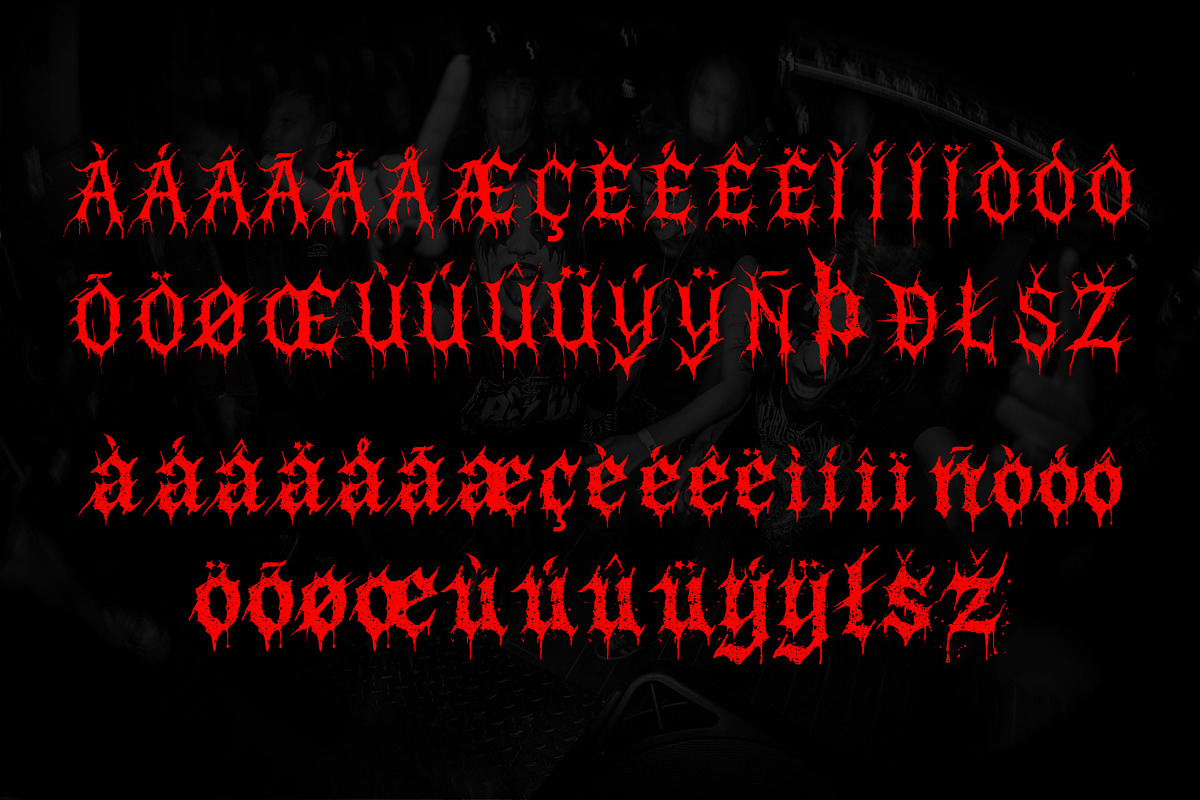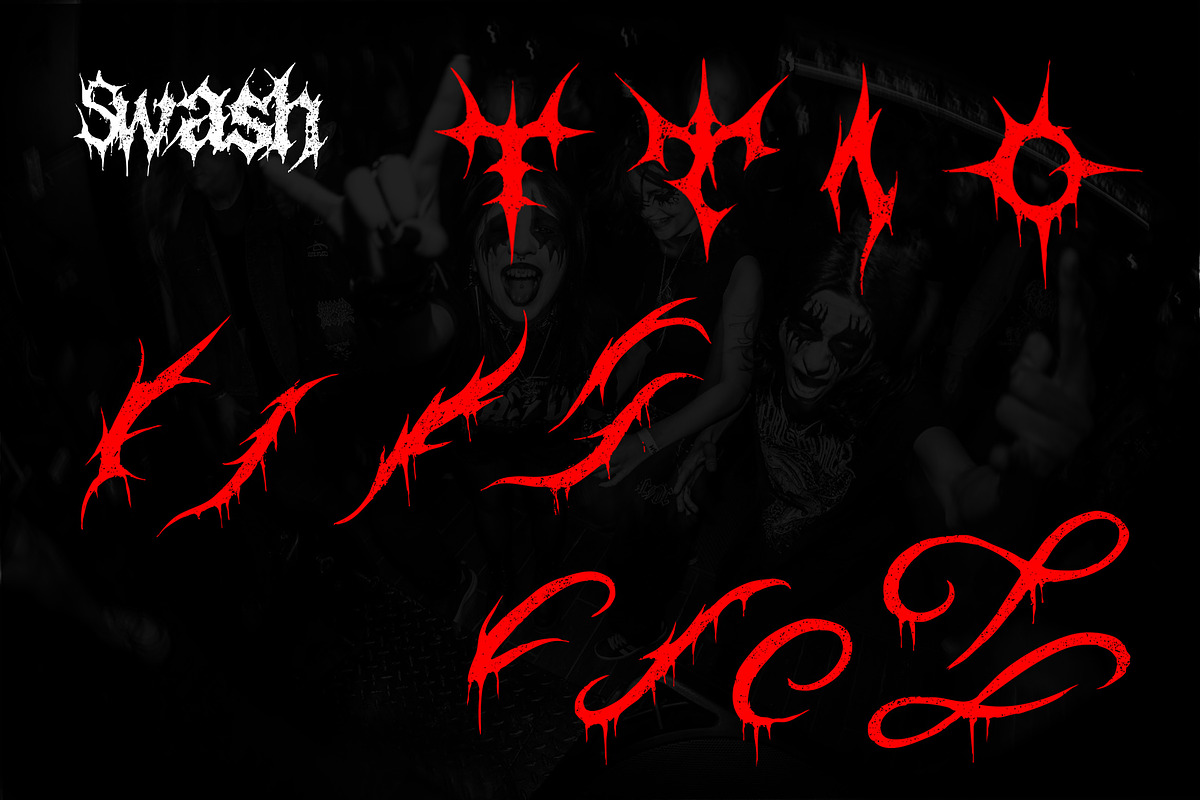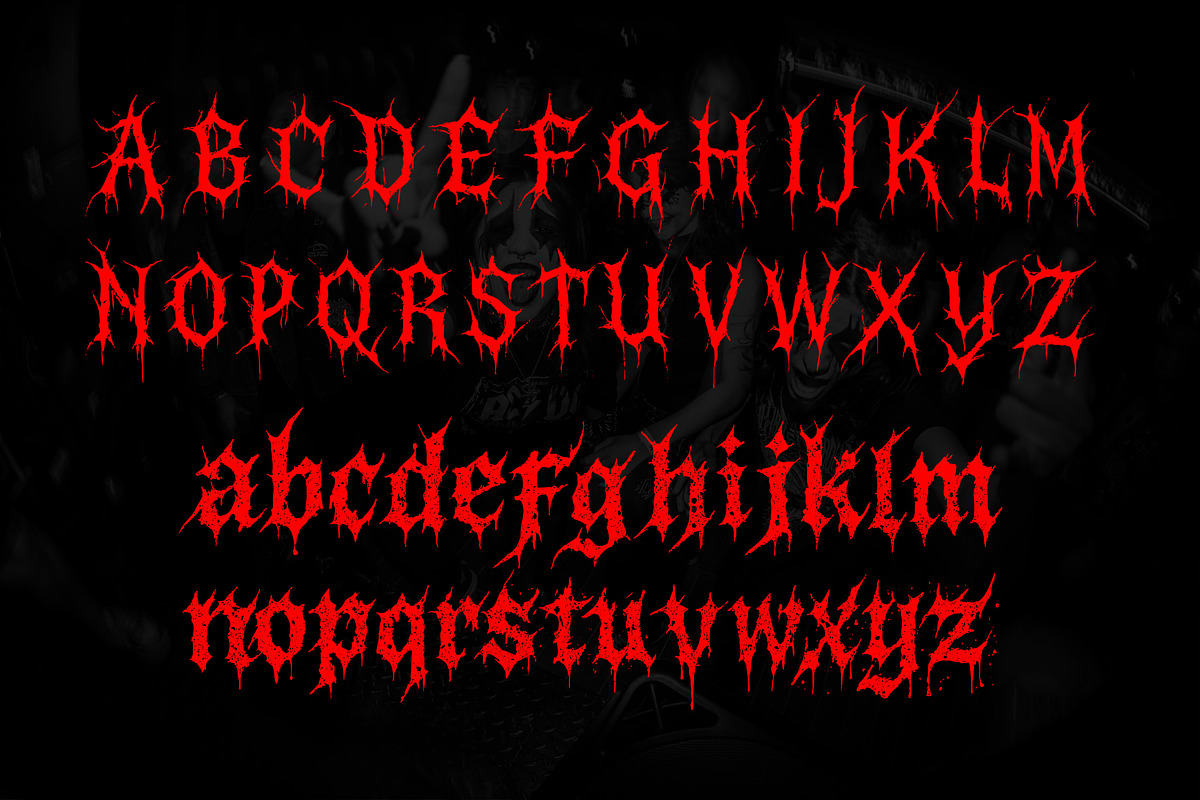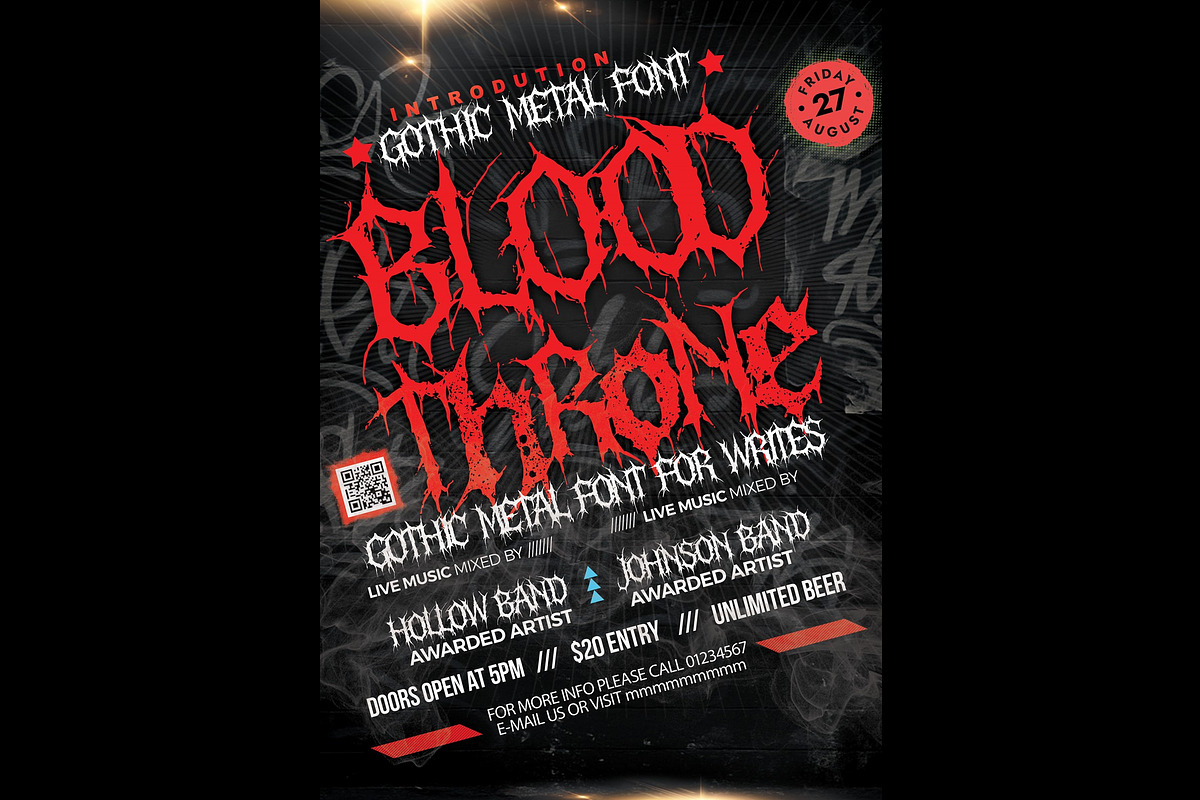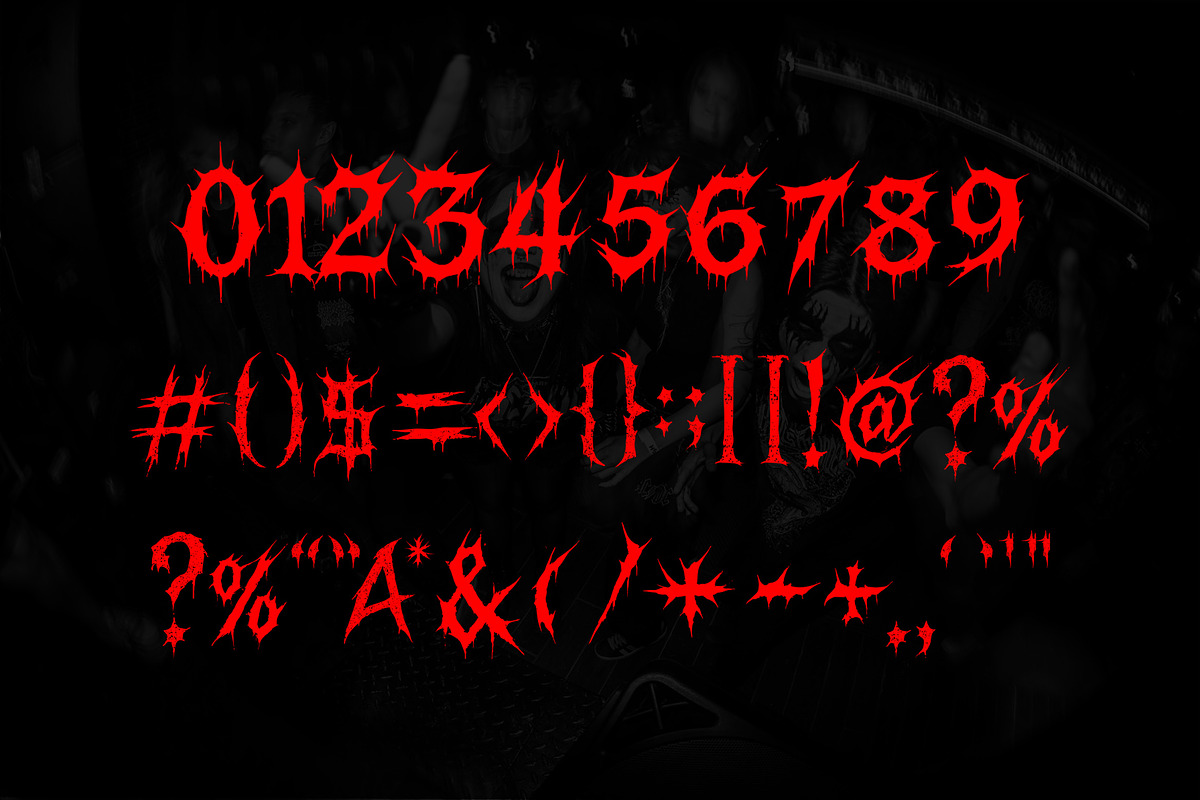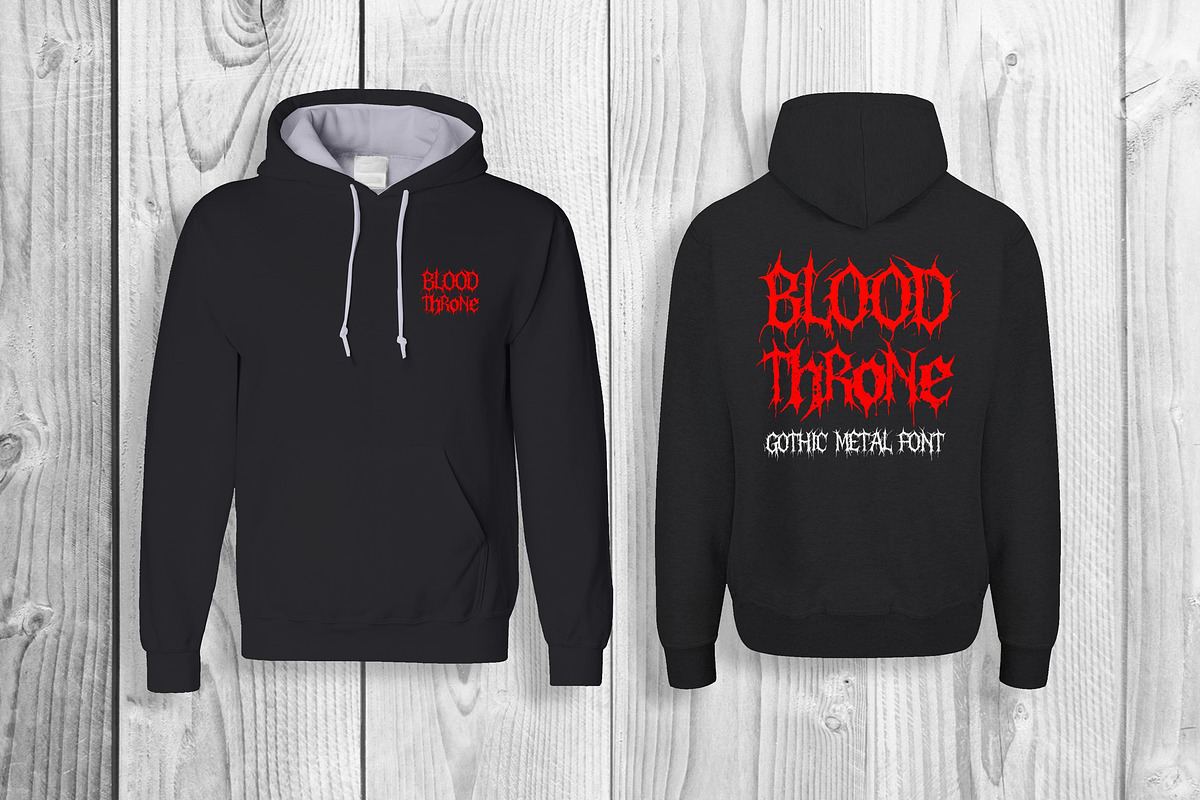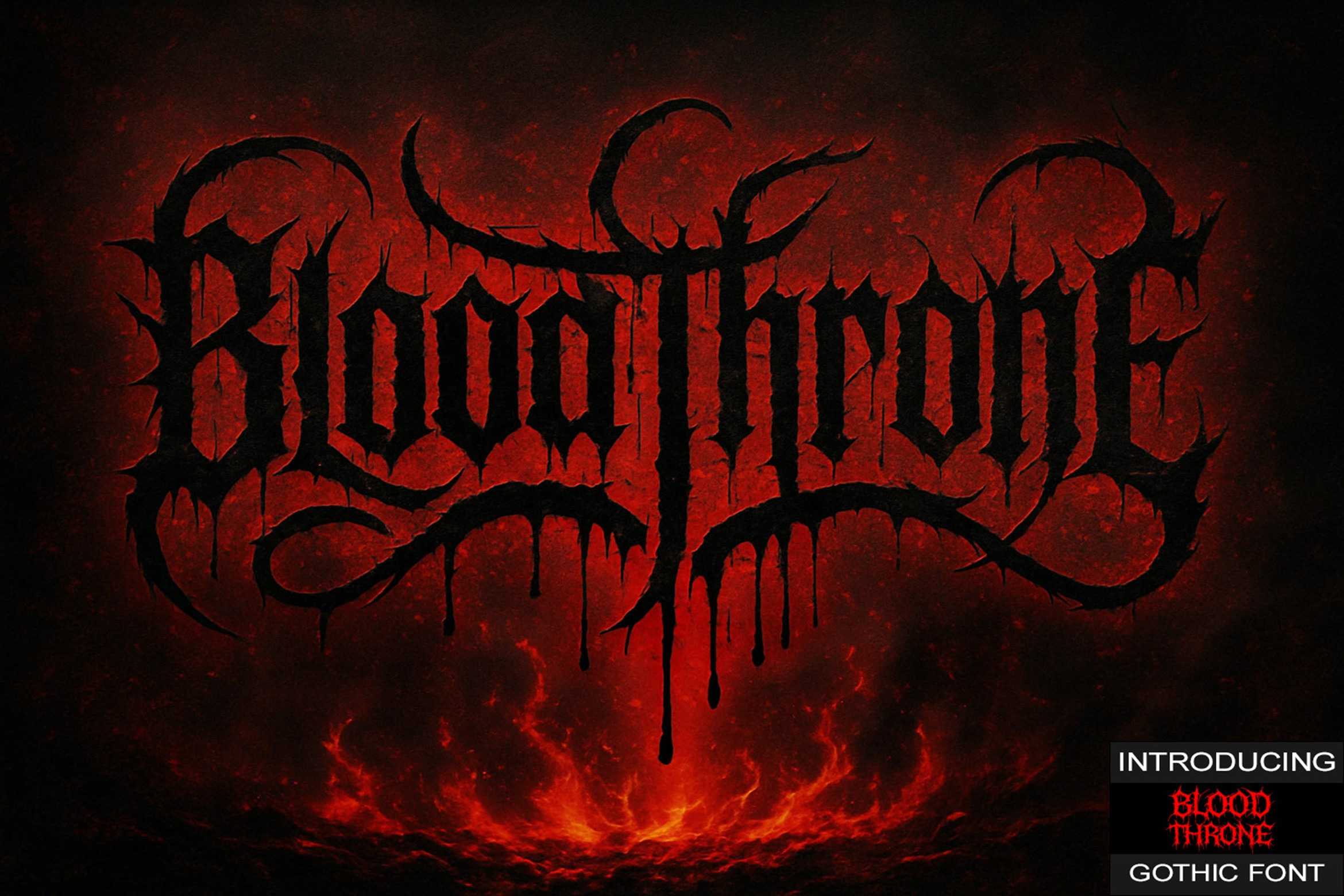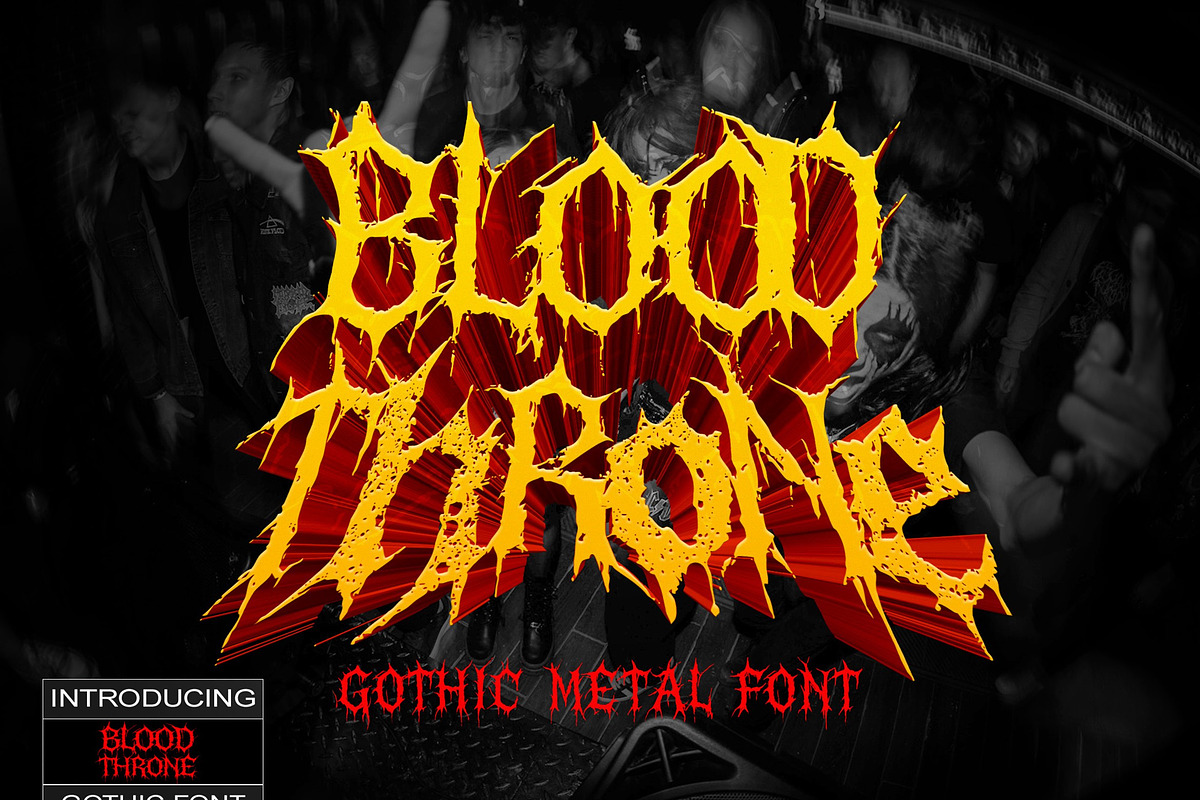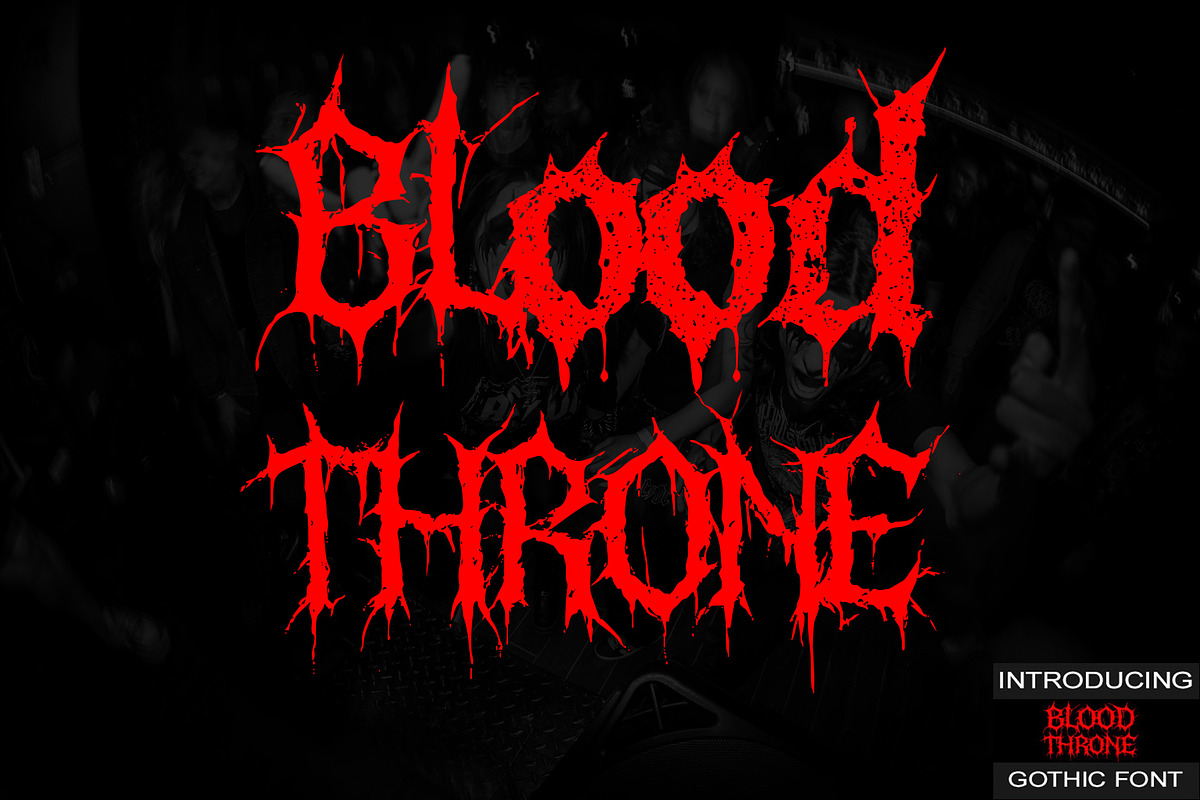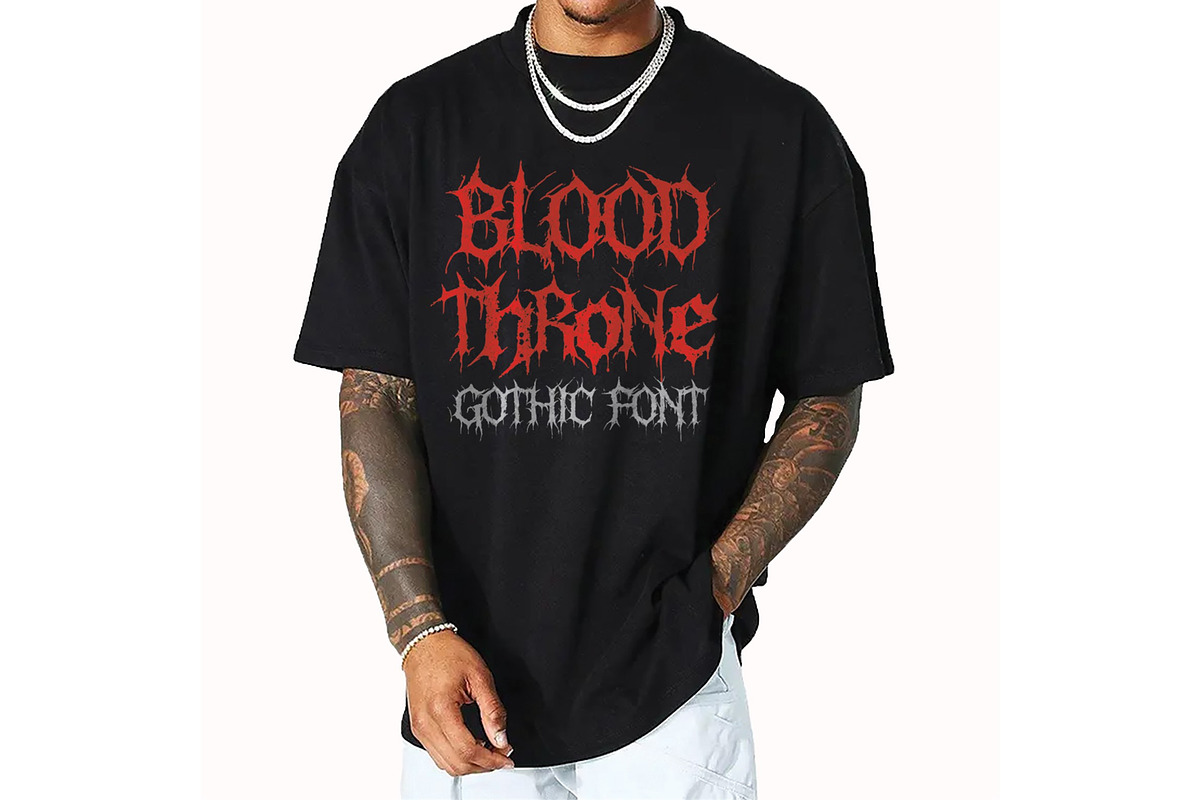
BloodThrone Gothic Metal Font
This font is inspired by Gothic Metal Style and the raw energy of street. Perfect for branding or any digital design that needs a wild and edgy touch. Great for creators who want their visuals to stand out with no compromises.
- 223 Glyps included Uppercase, Lowercase, Numeral, Punctuation, Multilingual international Language, swash and ornament art